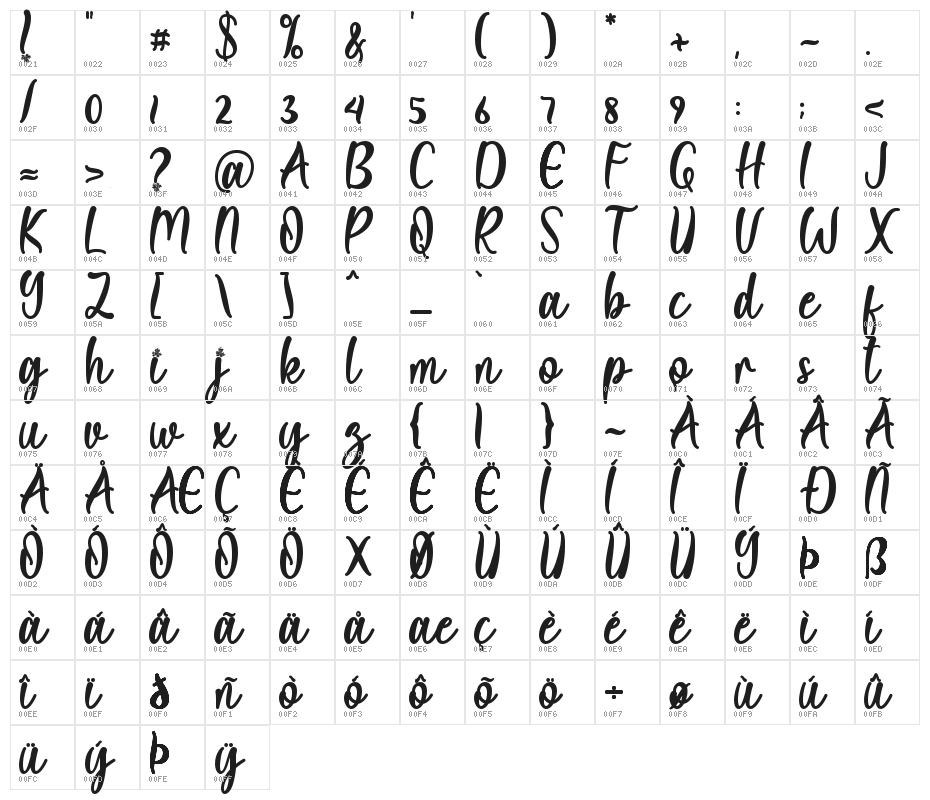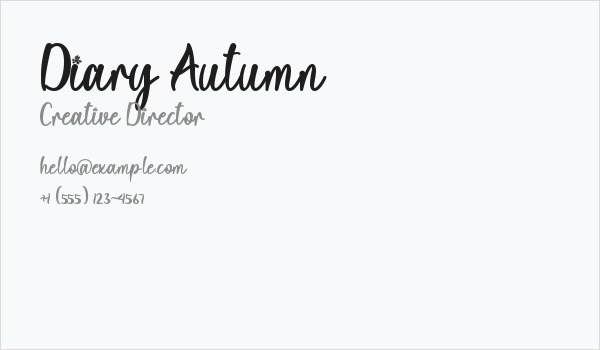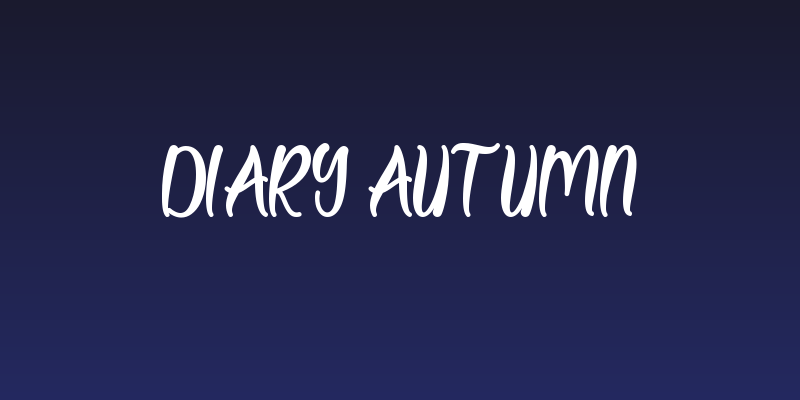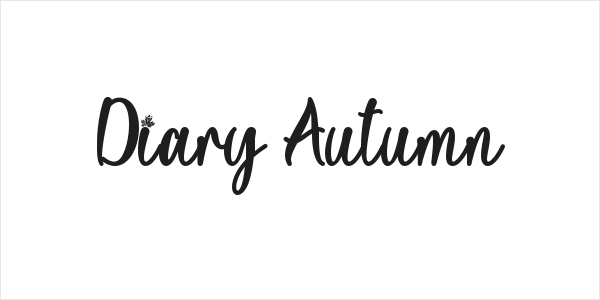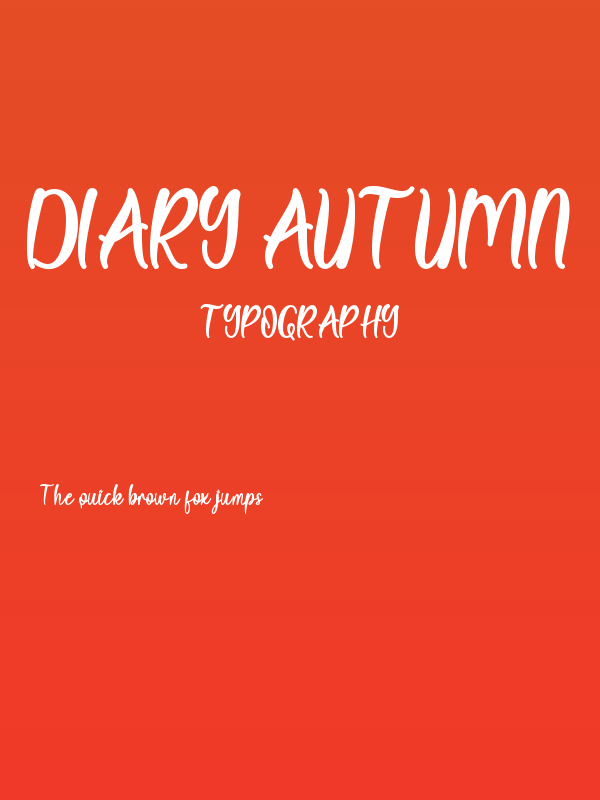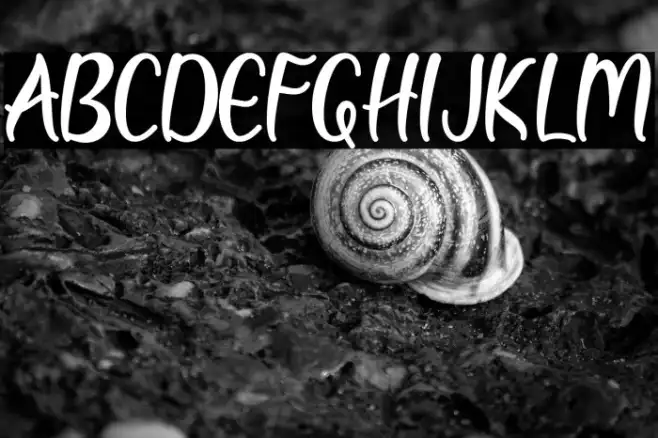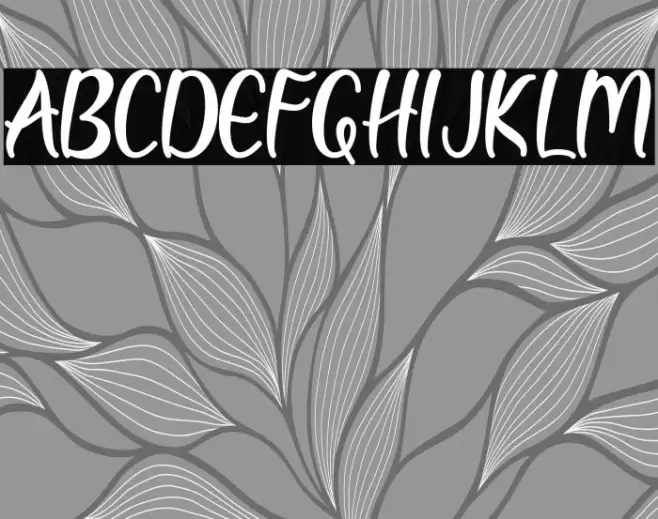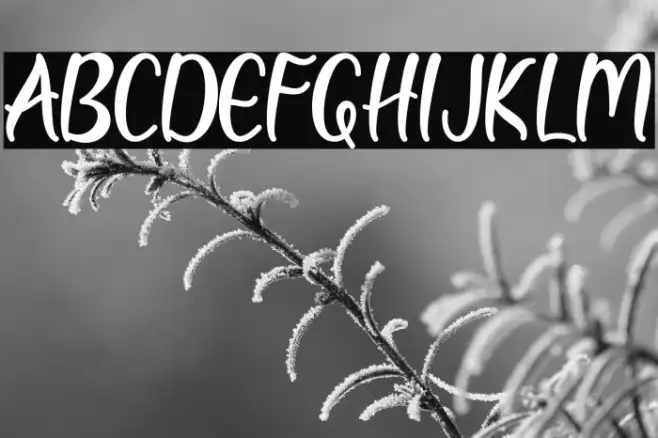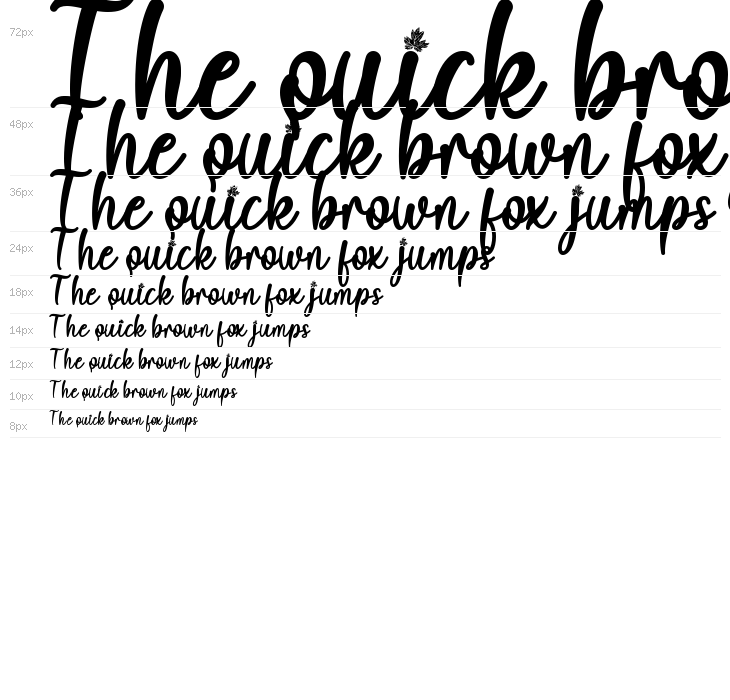
Diary Autumn Font
Diary Autumn Description
This font features a playful and casual handwritten style, characterized by its smooth, flowing curves and slightly irregular letterforms. The uppercase letters are bold and prominent, while the lowercase letters maintain a consistent, fluid motion, giving the text a lively and dynamic appearance. The numbers and special characters follow the same playful aesthetic, making them suitable for a variety of creative applications. The font's overall look is both approachable and stylish, making it ideal for projects that require a personal touch.
| Proposed Projects | Ideal for greeting cards, invitations, personal branding, social media graphics, and creative projects that require a personal touch. |